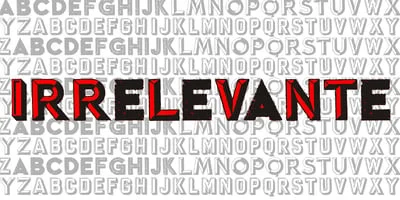
Irrelevante Font
Irrelevante Font is perfect for avant-garde art installations, experimental design projects, alternative music band logos, underground cultural events, rebellious brand identities, artistic rebellion campaigns, nonconformist publications, creative studio branding, independent film titles, and provocative advertising materials. Its rebellious character makes it ideal for projects requiring unconventional thinking and bold creative statements.
What makes Irrelevante Font exciting is its deliberate rejection of traditional typography rules in favor of raw creative expression and artistic authenticity. The font features intentionally irregular letterforms that challenge conventional design expectations while maintaining surprising readability. Its defiant character embodies the spirit of creative rebellion, making it perfect for artists and brands that refuse to conform to mainstream design trends and value authentic self-expression.
The Irrelevante Font family includes Regular, Bold, Chaos, Abstract, Rebel, Distorted, and Underground variations. Each style preserves the font's nonconformist essence while offering different levels of rebellion and artistic disruption for creating unconventional design statements. The comprehensive character set includes alternative symbols, artistic glyphs, experimental elements, and provocative ornaments essential for authentic rebellious typography projects.
Creative rebels and alternative brands consistently choose Irrelevante Font for projects demanding genuinely unconventional typography solutions. The font's rebellious character instantly establishes countercultural atmospheres while ensuring powerful visual communication that challenges audience expectations. Its versatility spans from subtle artistic rebellion to bold statements that completely disrupt conventional design paradigms.
Whether you're developing alternative brand identities, creating experimental art projects, or designing countercultural marketing materials, Irrelevante Font provides the perfect combination of creative rebellion and functional communication. The font's intentionally imperfect letterforms ensure authentic nonconformist character while maintaining enough structure for effective message delivery across various unconventional applications.
The revolutionary spirit of Irrelevante Font makes it exceptional for creating memorable impressions that challenge status quo thinking and inspire creative freedom. Its rebellious precision and underground appeal work seamlessly across traditional art installations and cutting-edge digital rebellion platforms. The font performs powerfully in both large-scale provocative displays and intimate alternative communications.
Break boundaries with Irrelevante Font and discover how genuinely rebellious typography can liberate your creative projects from conventional constraints. This remarkable typeface combines artistic rebellion with functional communication, making it indispensable for creators who refuse to accept limitations and demand authentic creative expression that challenges expectations.